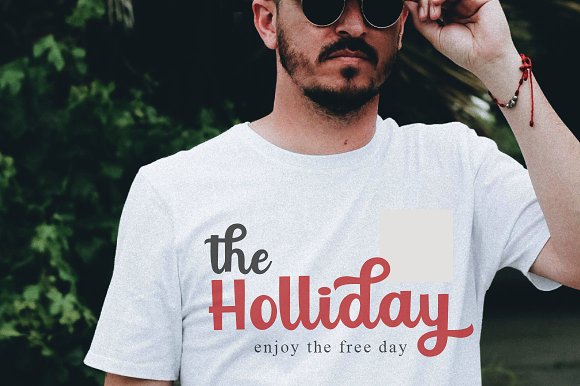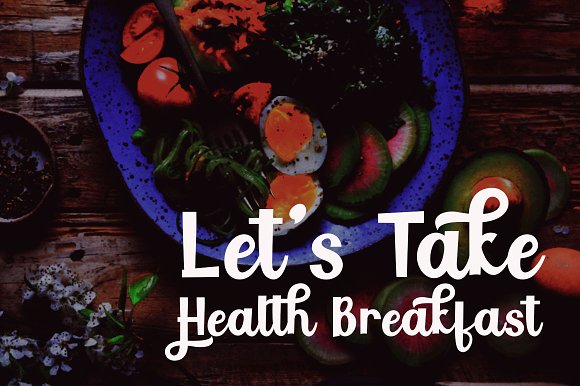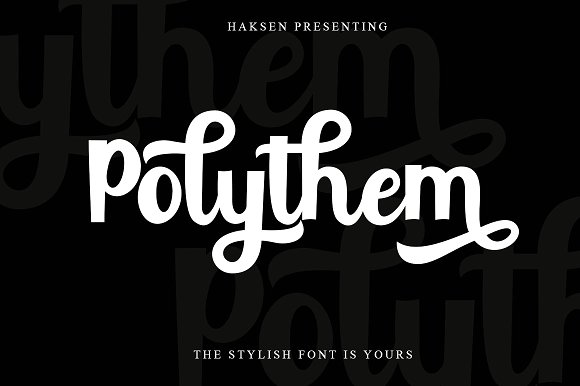
Polythem Bold Classy Font
Polythem is a beautiful high bold script font that makes for gorgeous logos, posters, wedding invitations, blog posts, social media, and more!